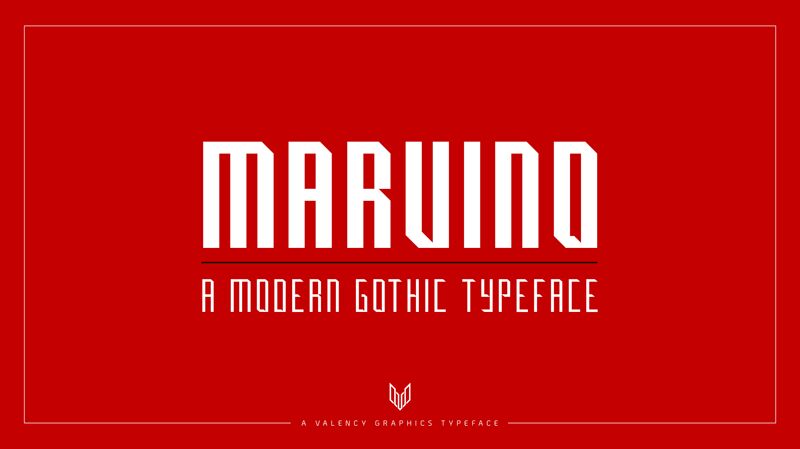
Marvino Light font by Valency Graphics is a free techno display typeface that treats every letter like a steel beam-tall, narrow, and brutally precise. Its modern gothic shapes stack into tight columns of black and white, with corners that feel like they’ve been cut with a razor. Despite the hard edges, spacing is generous enough that words stay crisp and readable, even when the letters are packed close for a heavy, industrial look.
Using Marvino Light, headlines feel like they’ve been stamped onto metal, making this free font a natural fit for sci-fi posters, club flyers, esports branding, industrial packaging, bold website headers, and motion graphics titles. It shines at large sizes, where those vertical bars and knife‑sharp joints really show. Pair Marvino Light with a soft, rounded sans serif for body text to balance its severe geometry and keep layouts approachable.
Marvino Light
Valency Graphics
Created in 2019. (My first font, named after my friend, Marv!)